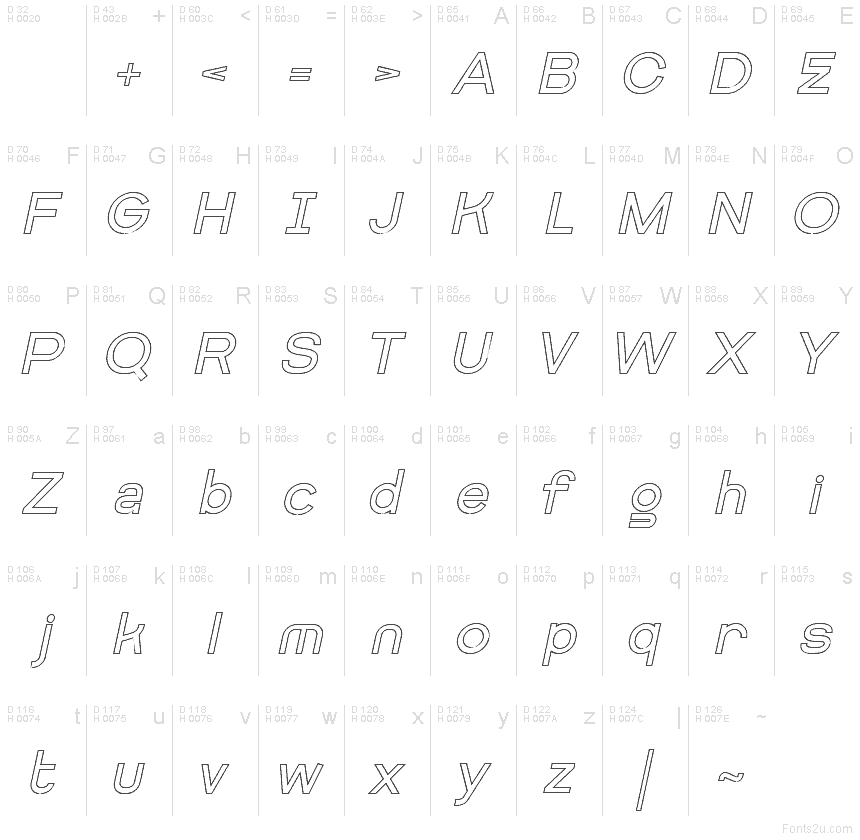
Getboreg Hollow Italic
Getboreg Hollow Italic font by Ffeeaarr is a free outlined sans serif typeface. Its airy, single-line contours and easy slant give words a breezy, wireframe presence—like neon tubing drawn with a steady hand. Rounded ends soften the geometry, so it feels friendly even at bold sizes, and the rhythm of the tilt keeps headlines moving. Within the Getboreg family, this style brings a light, spacious accent without visual weight.
Using Getboreg Hollow Italic, you can mark out posters, tech event graphics, sporty merch, neon-flavored signage, packaging, social banners, and motion titles that want speed and shine. The open shapes invite color overlays, gradients, or subtle glows for extra pop. For balance, pair this free font with a plain, medium-weight grotesque and keep the outline set large to preserve the clean, elastic lines.